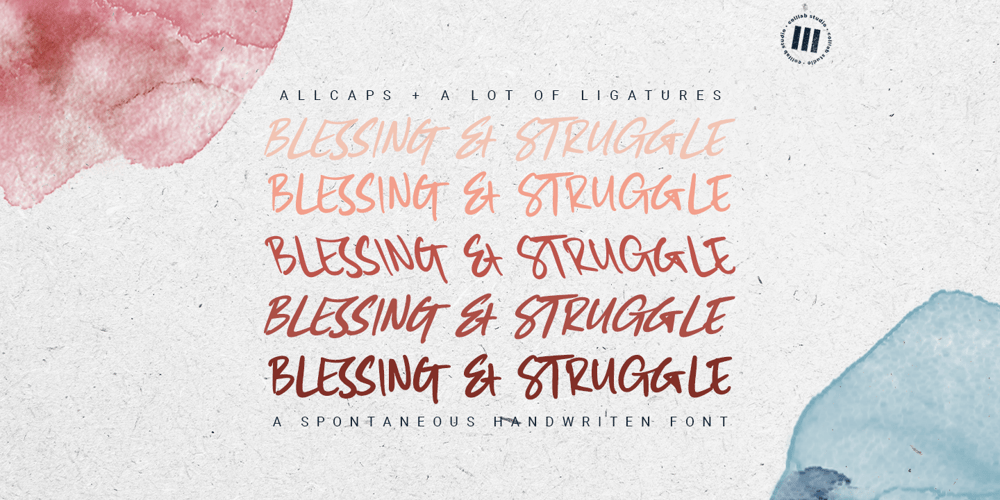
Blessing and Struggle Font Family was designed by Muh. Aswar and published by Colllab Studio. Blessing and Struggle contains 5 styles and family package options. Presenting Blessing and Struggle! A Spontaneous Handwritten Font with all-caps glyphs. This font made with the perfect combination of each character. You can combine with Extra to get a unique combination. It looks original and can be used for all your project needs. Each glyph has its own uniqueness and when meeting with others will provide dynamic and pleasing proximity. This font can be used at any time and in any project. You can see in the presentation picture above, Blessing and Struggle looks unique and authentic style on design projects.So, Blessing and Struggle can’t wait to give its touch to all your design projects such as quotes, poster design, personal branding, promotional materials, website, logotype, product packaging, etc.WHAT’S INCLUDED?1. Blessing and Struggle Regular • The first version comes with uppercase, lowercase, ligatures, numeral, punctuation, symbols, and Standard Latin Multilingual Support (Afrikaans, Albanian, Catalan, Danish, Dutch, English, French, German, Icelandic, Indonesian, Italian, Malay, Norwegian, Portuguese, Spanisch, Swedish, Zulu, and More).2. Blessing and Struggle Slant • The first version comes with uppercase, lowercase, ligatures, numeral, punctuation, symbols, and Standard Latin Multilingual Support (Afrikaans, Albanian, Catalan, Danish, Dutch, English, French, German, Icelandic, Indonesian, Italian, Malay, Norwegian, Portuguese, Spanisch, Swedish, Zulu, and More).3. Blessing and Struggle Slant Bold • The first version comes with uppercase, lowercase, ligatures, numeral, punctuation, symbols, and Standard Latin Multilingual Support (Afrikaans, Albanian, Catalan, Danish, Dutch, English, French, German, Icelandic, Indonesian, Italian, Malay, Norwegian, Portuguese, Spanisch, Swedish, Zulu, and More).4. Blessing and Struggle Semi Bold • The first version comes with uppercase, lowercase, ligatures, numeral, punctuation, symbols, and Standard Latin Multilingual Support (Afrikaans, Albanian, Catalan, Danish, Dutch, English, French, German, Icelandic, Indonesian, Italian, Malay, Norwegian, Portuguese, Spanisch, Swedish, Zulu, and More).5. Blessing and Struggle Minus Slant • The first version comes with uppercase, lowercase, ligatures, numeral, punctuation, symbols, and Standard Latin Multilingual Support (Afrikaans, Albanian, Catalan, Danish, Dutch, English, French, German, Icelandic, Indonesian, Italian, Malay, Norwegian, Portuguese, Spanisch, Swedish, Zulu, and More).6. Extra Swashes • Included 7 Dingbats. You can feature all with typing c_1 until c_7 (in all versions)A Million ThanksColllab Studio